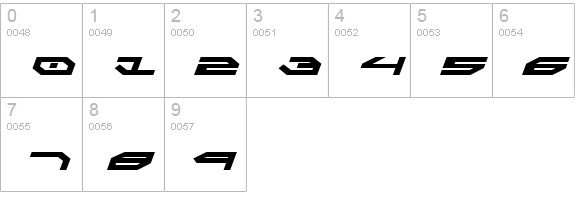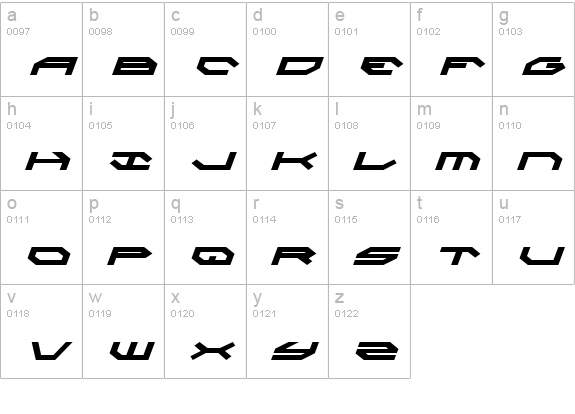
Taskforce Italic is a distinctive, italic variant in the Taskforce typeface family \xE2\x80\x94 well suited to design and typography projects.
Taskforce Italic font is a sleek and modern typeface that exudes sophistication and elegance. With its stylish slanted design and clean lines, this font is perfect for adding a touch of class to any project. Whether you are designing a website, creating a brochure, or crafting a logo, Taskforce Italic font will help you make a bold statement. The best part? Taskforce Italic font is available for free download at FontsMarket.com. That's right, you can get your hands on this stunning font without spending a dime. So why wait? Elevate your designs with Taskforce Italic font today and watch them come to life with style and flair.